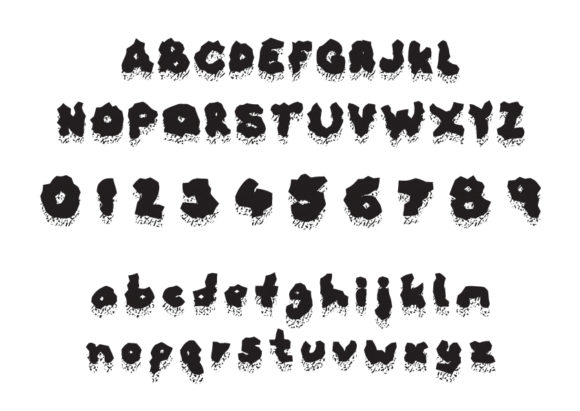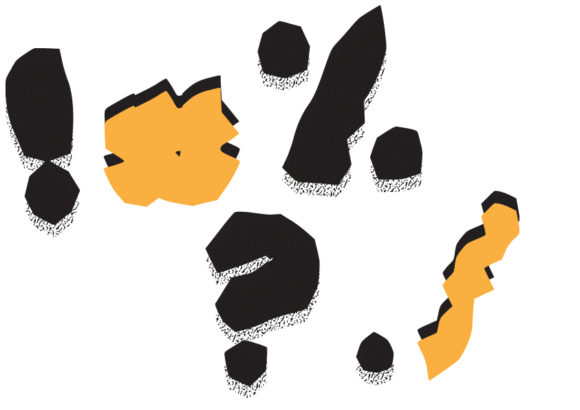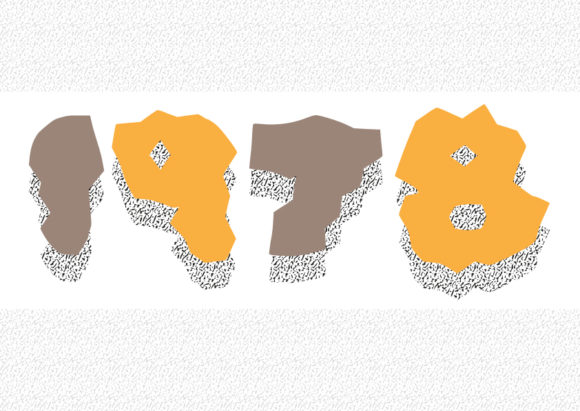
Introducing Flint Font: The Playful Display Font for Crafting Projects
Are you a designer or crafter looking for a unique and playful font to add a touch of personality to your projects? Look no further than Flint Font, a display font that is sure to make your crafting projects stand out. With its rugged, rock-like appearance, Flint Font is the perfect choice for anyone looking to add a comic style to their designs.
What is Flint Font?
Flint Font is a playful display font that is designed to look like it’s been smashed out of rock. With its bold, chunky letters and rugged texture, Flint Font is the perfect choice for anyone looking to add a touch of whimsy to their designs. Whether you’re working on a crafting project, a graphic design project, or simply looking for a fun font to use in your digital creations, Flint Font is a great choice.
Key Features of Flint Font
- Playful and Fun: Flint Font is a playful and fun font that is sure to add a touch of personality to your designs.
- Rugged Texture: The font features a rugged texture that gives it a rock-like appearance.
- Bold and Chunky: The letters in Flint Font are bold and chunky, making it perfect for display purposes.
- Comic Style: Flint Font has a comic style that is perfect for crafting projects, graphic design projects, and digital creations.
Uses for Flint Font
Flint Font is a versatile font that can be used in a variety of different projects. Here are a few ideas to get you started:
- Crafting Projects: Flint Font is perfect for crafting projects, such as scrapbooking, card making, and other paper crafts.
- Graphic Design Projects: The font can also be used in graphic design projects, such as creating posters, flyers, and brochures.
- Digital Creations: Flint Font can be used in digital creations, such as social media graphics, blog posts, and website designs.
- Sign Making: The font’s bold and chunky letters make it perfect for sign making, whether you’re creating a sign for a business or a personal project.
Tips for Using Flint Font
Here are a few tips for using Flint Font in your projects:
- Use it as a Display Font: Flint Font is perfect for use as a display font, so use it to add a touch of personality to your headings and titles.
- Pair it with Other Fonts: Flint Font can be paired with other fonts to create a unique and interesting look.
- Experiment with Colors: The font’s rugged texture looks great in a variety of different colors, so don’t be afraid to experiment and find the perfect color for your project.
Flint Font is a playful display font that is sure to add a touch of personality to your crafting projects. With its rugged, rock-like appearance and bold, chunky letters, Flint Font is the perfect choice for anyone looking to add a comic style to their designs. Whether you’re a designer or crafter, Flint Font is a great choice for anyone looking for a fun and versatile font.